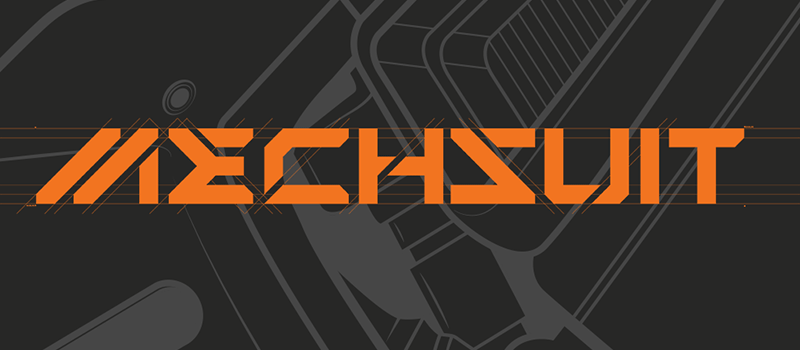
Mechsuit is a versatile sci-fi typefont that also doubles as a stencil font. This font is free for you to use in both commercial AND non-commercial works. No permission is needed. Donations are appreciated! |